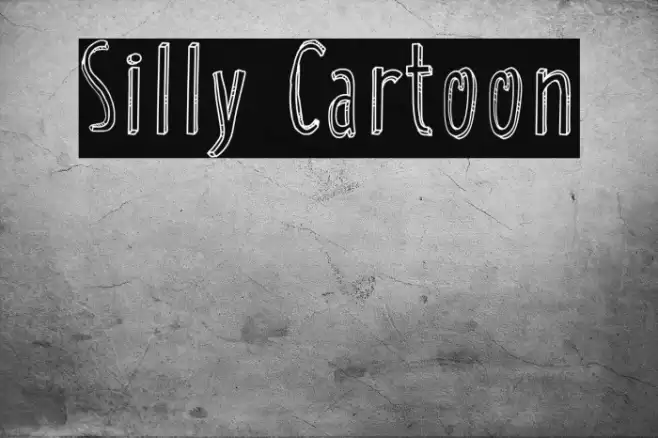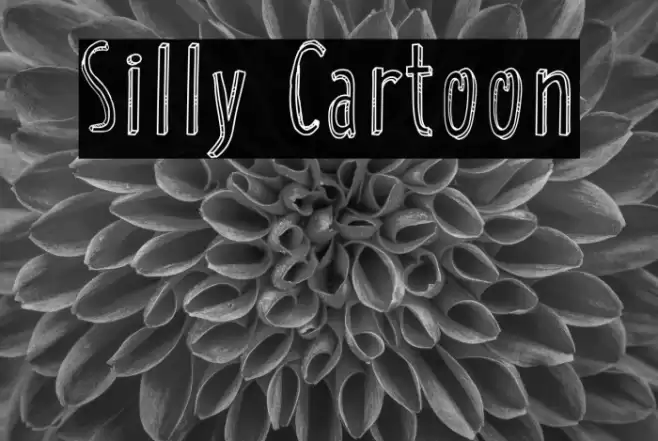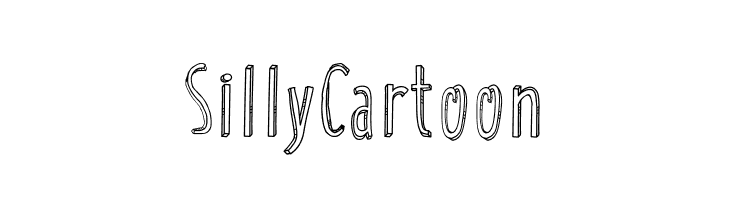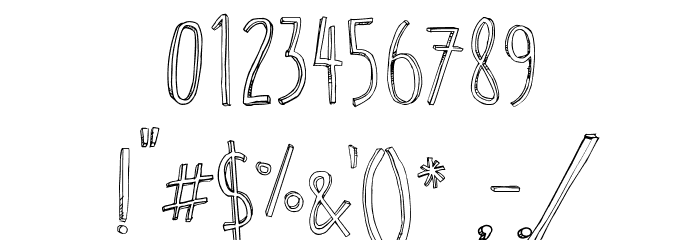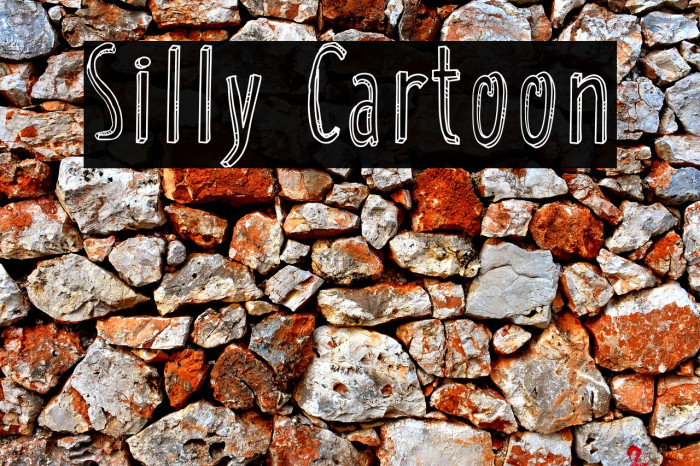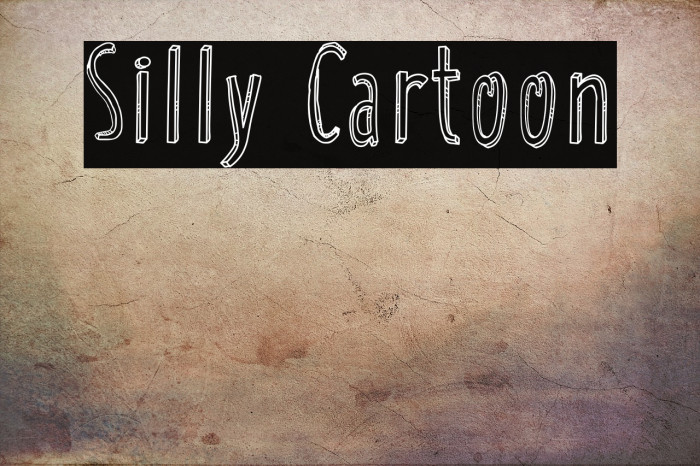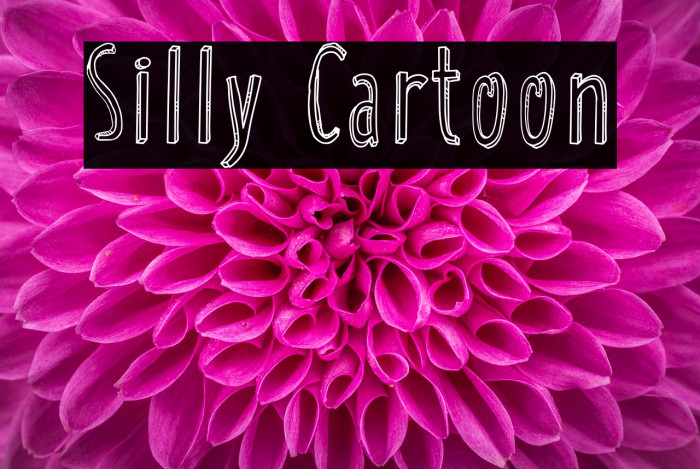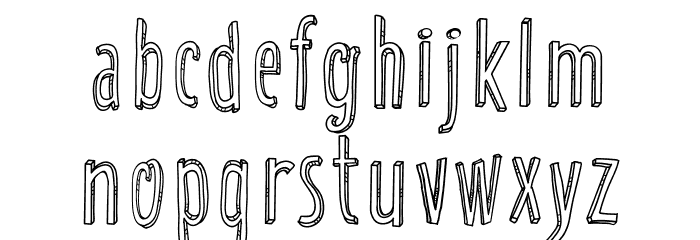
Silly Cartoon Font
Silly Cartoon Description
This playful and whimsical font features a hand-drawn, cartoonish style with irregular lines and a sketch-like appearance. Each character is uniquely crafted with a slightly uneven stroke, giving it a lively and animated feel. The uppercase and lowercase letters maintain a consistent height, while the numbers and special characters complement the overall quirky design. This font exudes a sense of fun and creativity, making it ideal for projects that require a lighthearted and informal touch. Its distinct personality is perfect for capturing attention and adding a playful element to any design.
A playful, hand-drawn font with a whimsical, cartoonish style from Cartoon fonts.
- Proposed Projects: Ideal for children's books, comic strips, playful branding, and creative posters.
- Overall Style: Whimsical, Playful